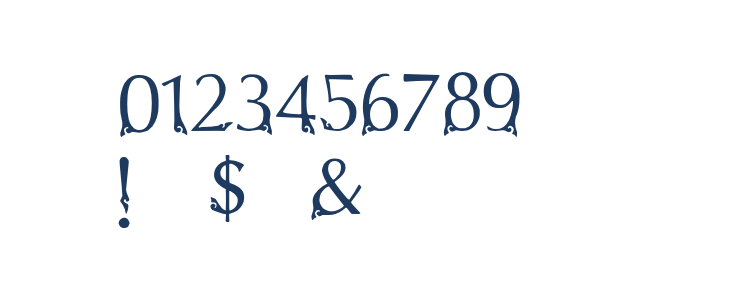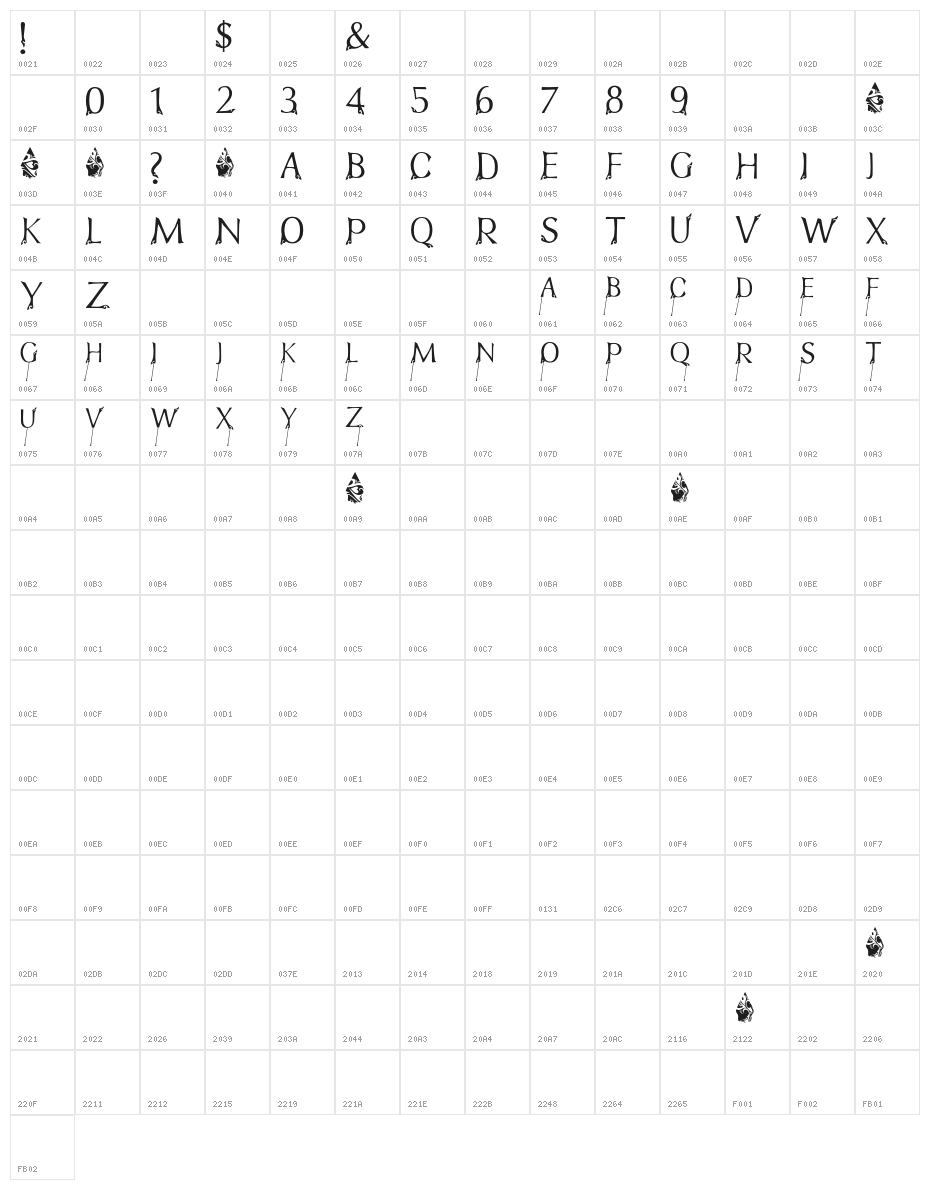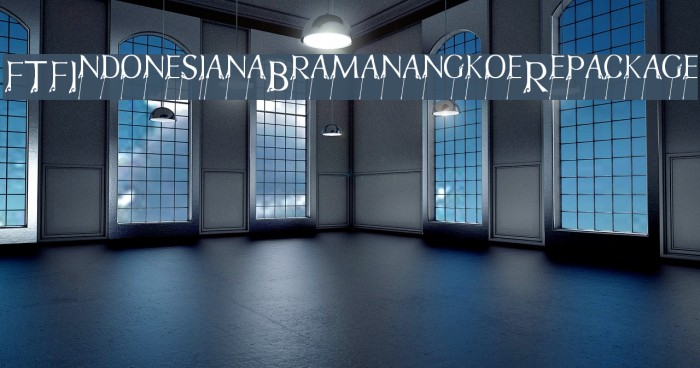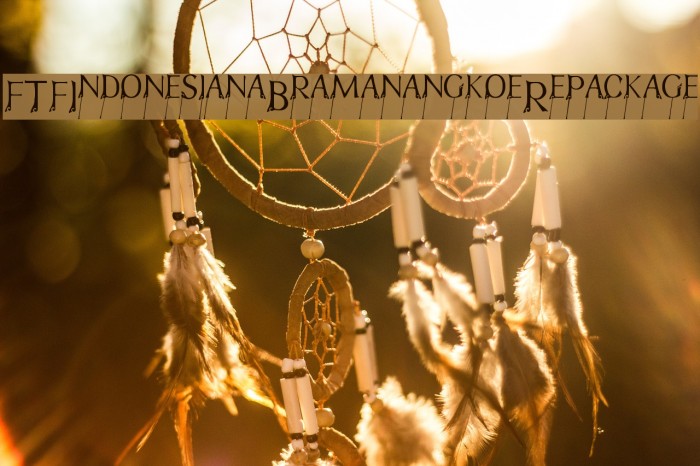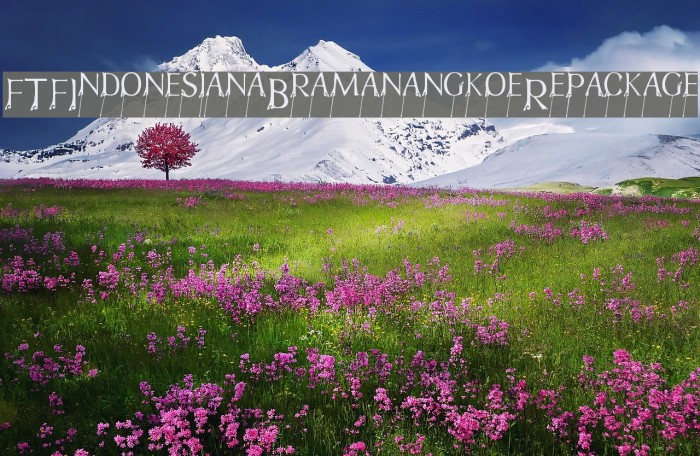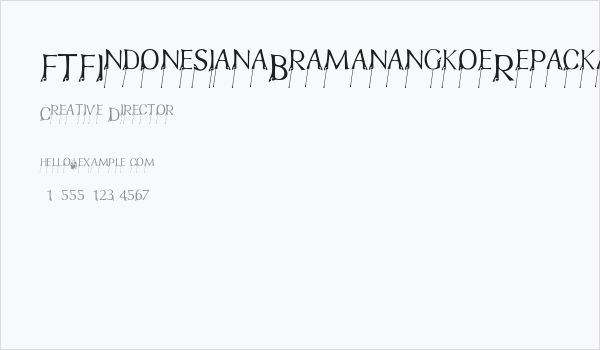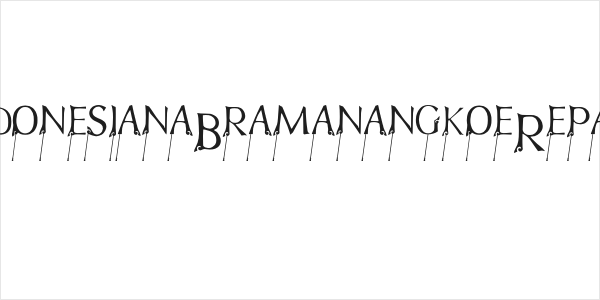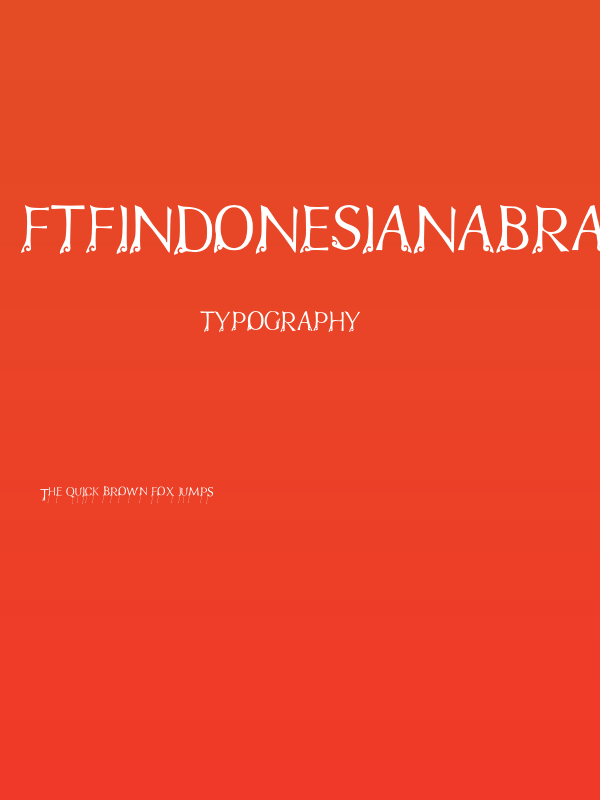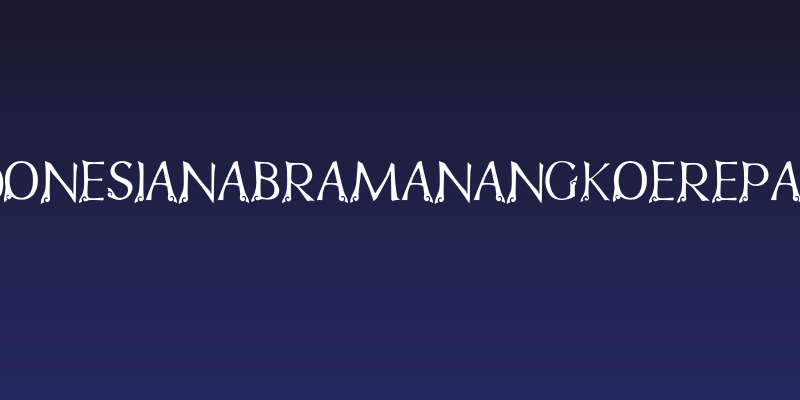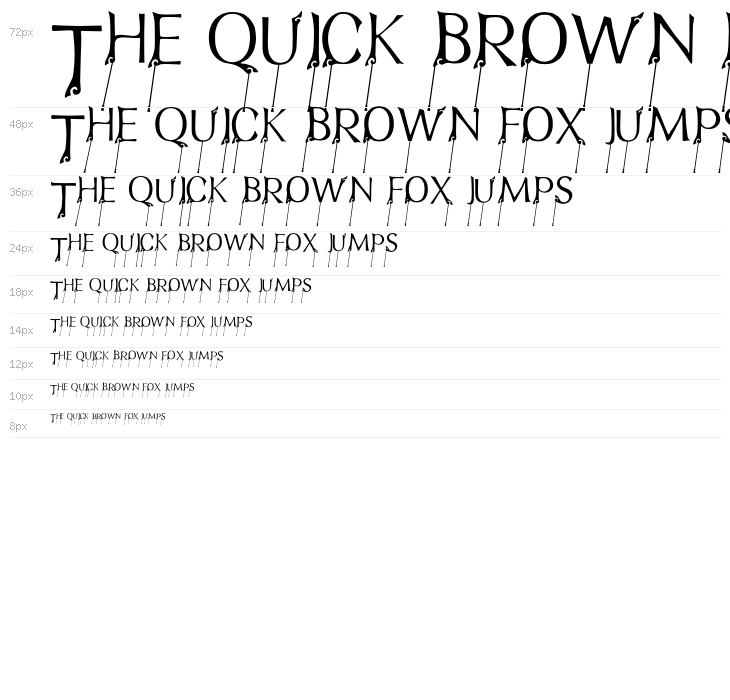
FTFIndonesianaBramanangkoeRepackage Font
FTFIndonesianaBramanangkoeRepackage Description
This font features a unique and decorative style, characterized by elegant, elongated serifs that resemble ornamental hooks or tails. The uppercase letters are bold and prominent, with a distinct flair that adds a touch of sophistication. The lowercase letters maintain a consistent style, complementing the uppercase with their own intricate details. Numbers and special characters follow the same design principles, ensuring a cohesive look across all elements. The overall appearance is both artistic and functional, making it suitable for projects that require a distinctive and eye-catching typeface.
| Proposed Projects | Ideal for branding, invitations, posters, and any design project that requires a unique and artistic touch. |